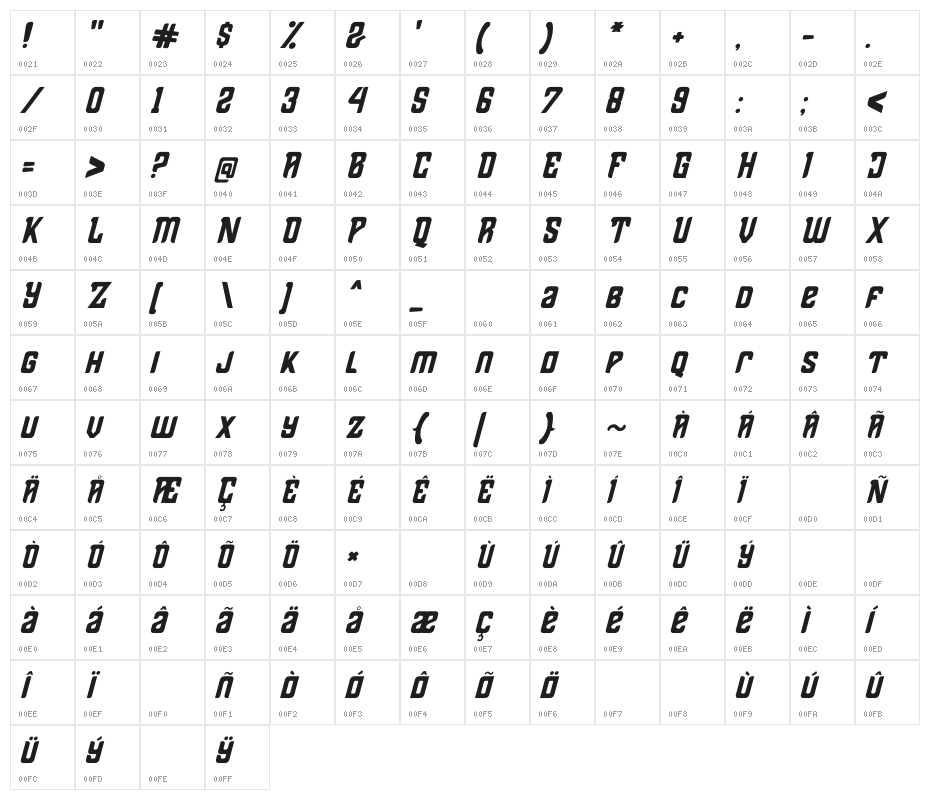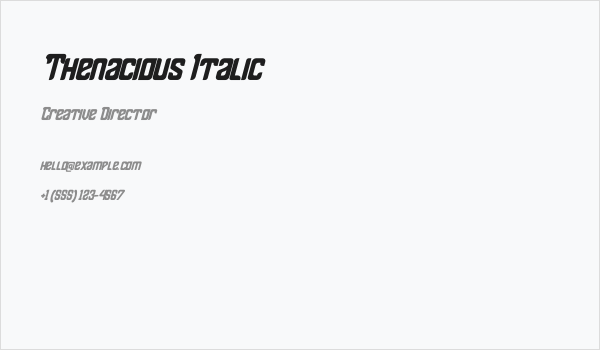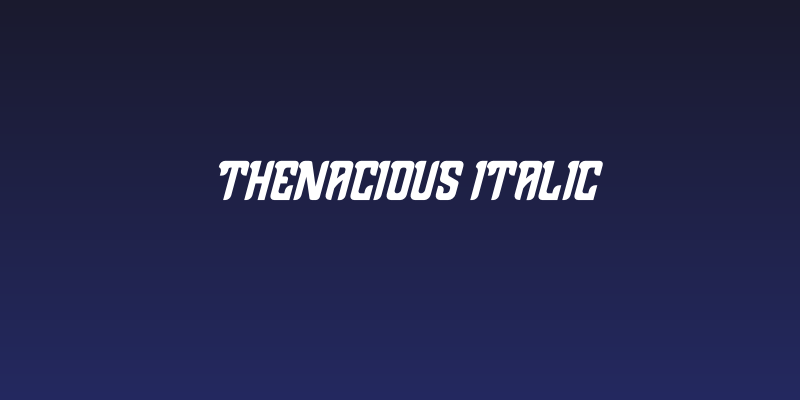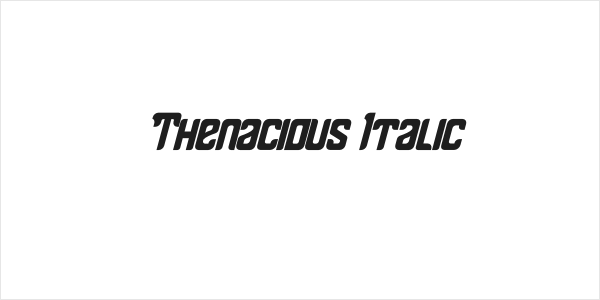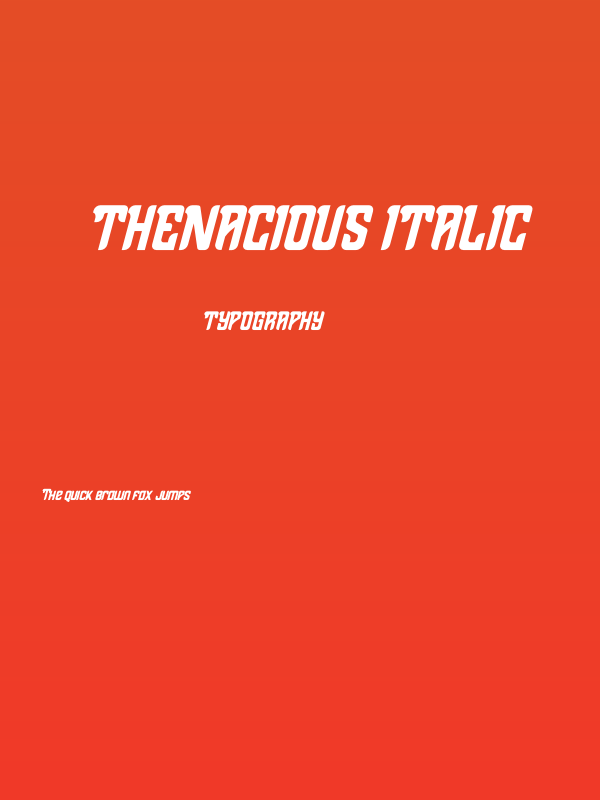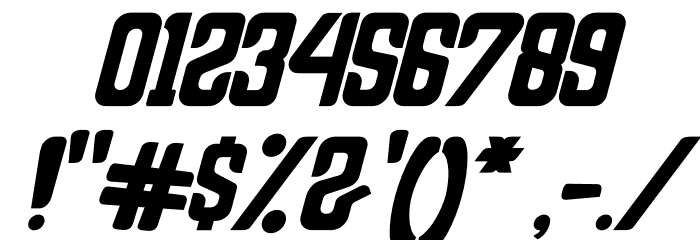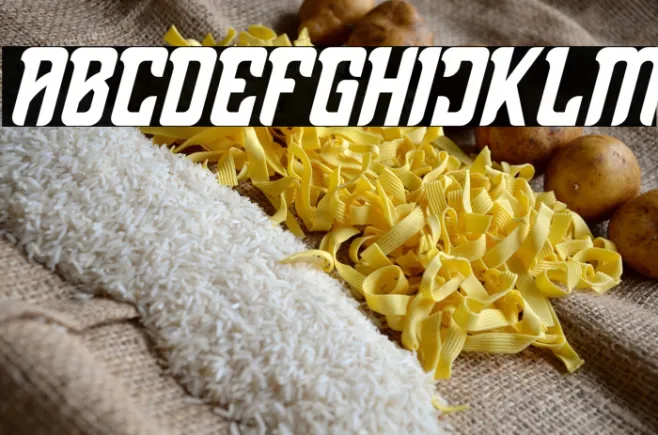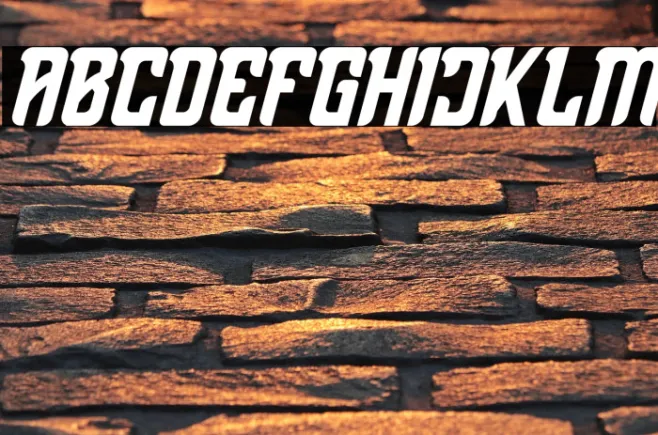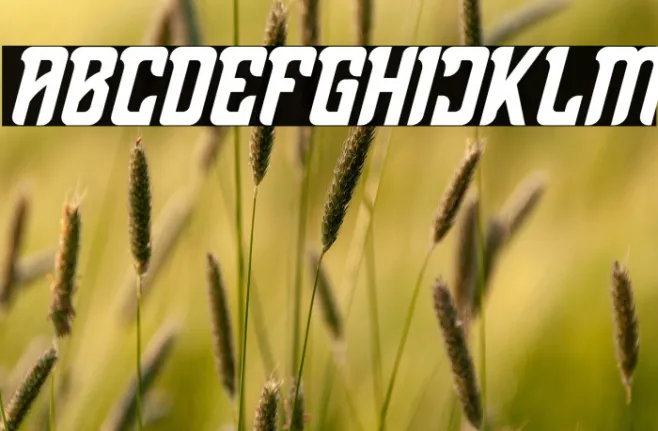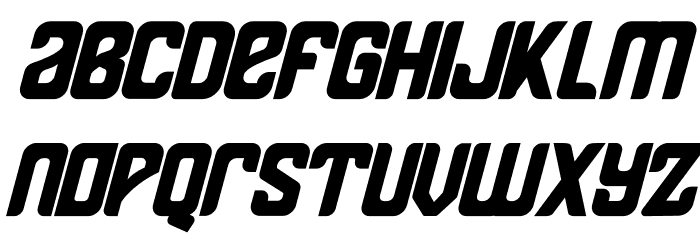
Thenacious Italic Font
Thenacious Italic Description
This font features a bold and dynamic style with a distinct italic slant, giving it a sense of movement and energy. The characters are robust and slightly condensed, with thick strokes that create a strong visual impact. The angular design of the letters adds a modern touch, while the consistent stroke width maintains readability. This font is well-suited for making statements, with its eye-catching appearance and confident presence. The numbers and special characters are designed to match the boldness of the letters, ensuring a cohesive look across all text elements.